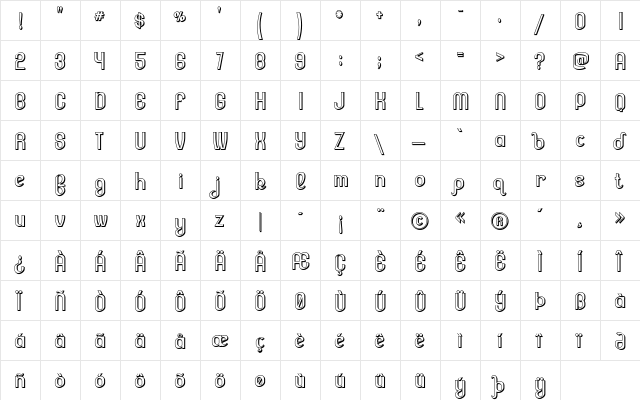
Lesser Concern Shadow
Design Context for Lesser Concern Typeface
Lesser Concern brings ornamental detail and strong personality to headlines and identities, where visual impact matters more than quiet functionality.
Font Pairing: Pair with a clean neutral sans-serif for body copy to let Lesser Concern's character lead without overwhelming the composition.
Pro Tip: Use Lesser Concern exclusively at display sizes — it was designed to be seen, not read at length. Let a neutral companion handle body copy.